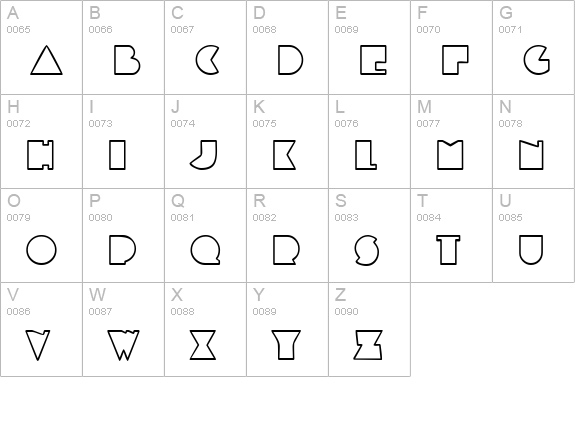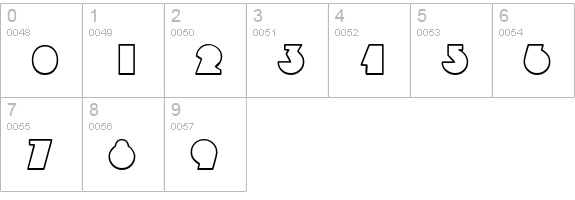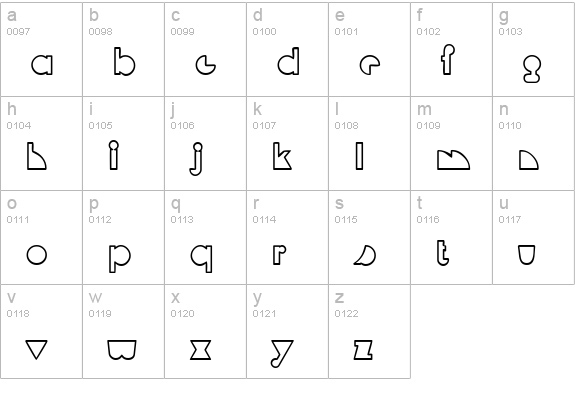
MandrelOutline Font Details
MandrelOutline font is a striking and sophisticated typeface that is sure to make a statement in any design project. This font features a unique outline style, adding a touch of elegance and creativity to your designs. With its clean lines and sharp edges, MandrelOutline is perfect for logos, headlines, posters, and other graphic design applications. What sets MandrelOutline font apart is not only its stunning aesthetics but also the fact that it is available for free. Yes, you read that right! This font is freely available to download at FontsMarket.com, allowing designers and creative professionals to access this incredible typeface without any cost. Whether you are a professional designer or someone who loves experimenting with typography, MandrelOutline font offers endless possibilities. Its versatility allows it to be used in a wide range of design projects, giving your creations a modern and stylish edge. With its sleek and contemporary design, MandrelOutline font is ideal for creating eye-catching headlines and captivating branding materials. Its bold and impactful presence is bound to grab attention and leave a lasting impression on your audience. So why wait? Take advantage of this amazing opportunity to enhance your designs with MandrelOutline font. Download it for free today at FontsMarket.com and unlock the potential to create stunning visuals that stand out from the crowd.